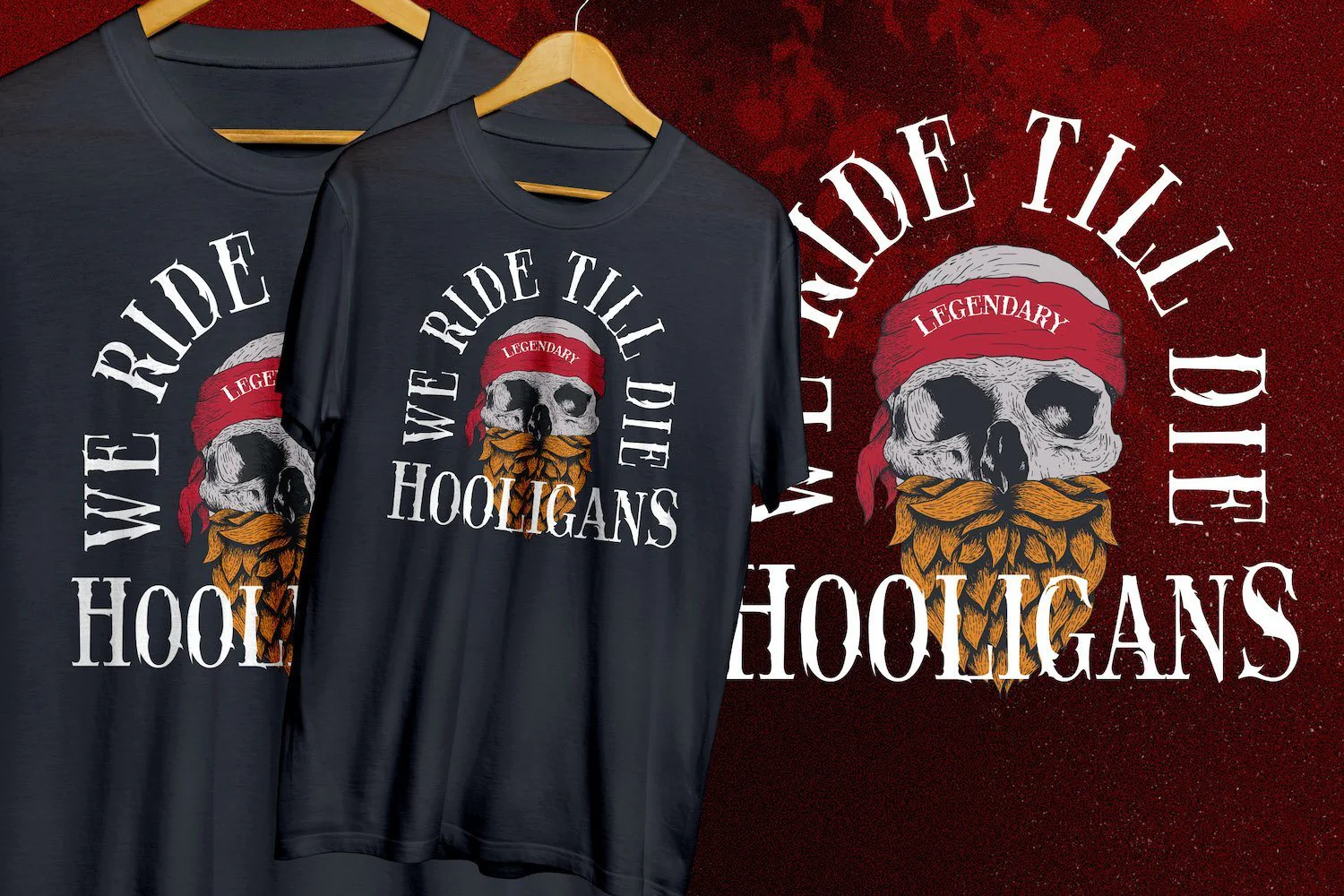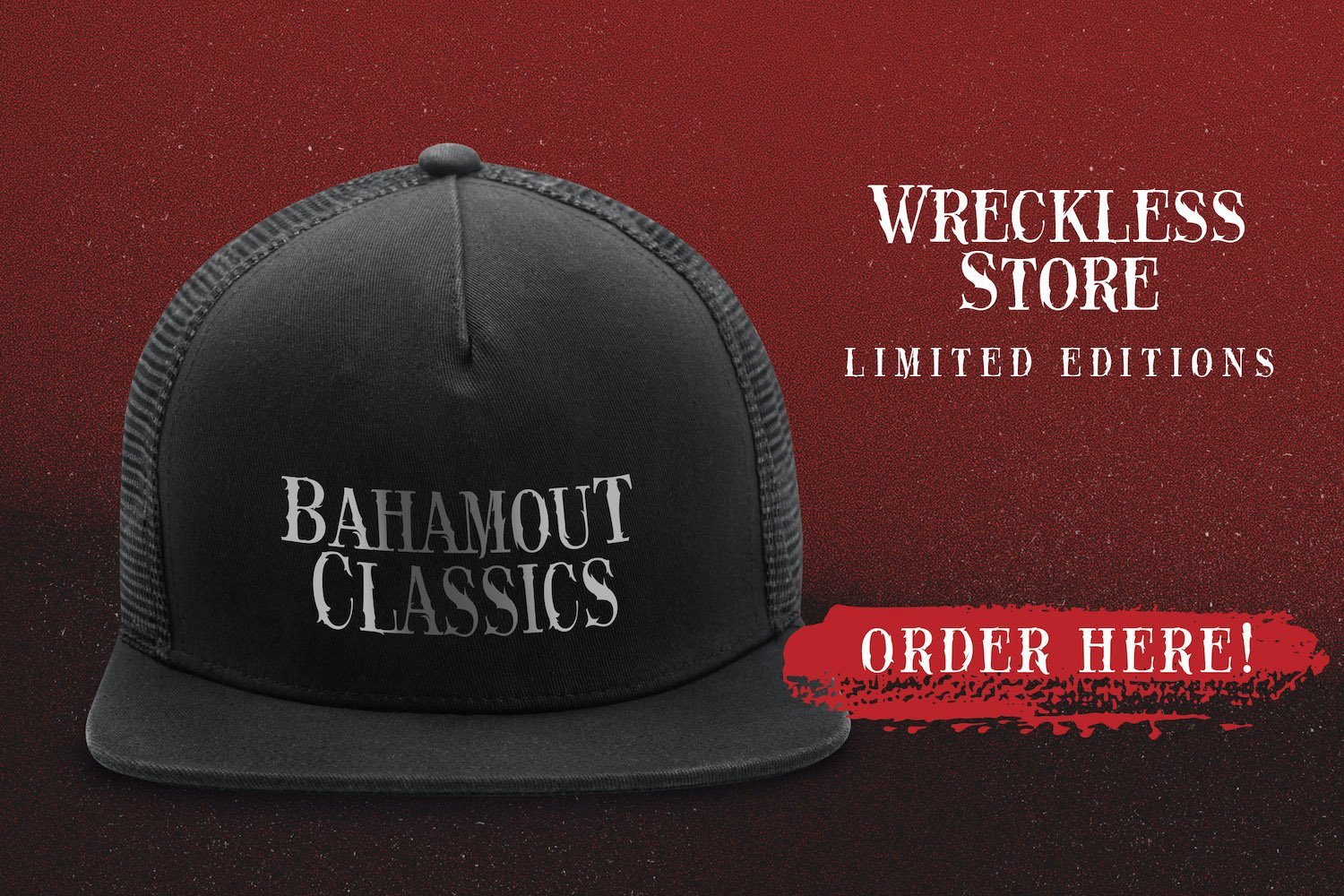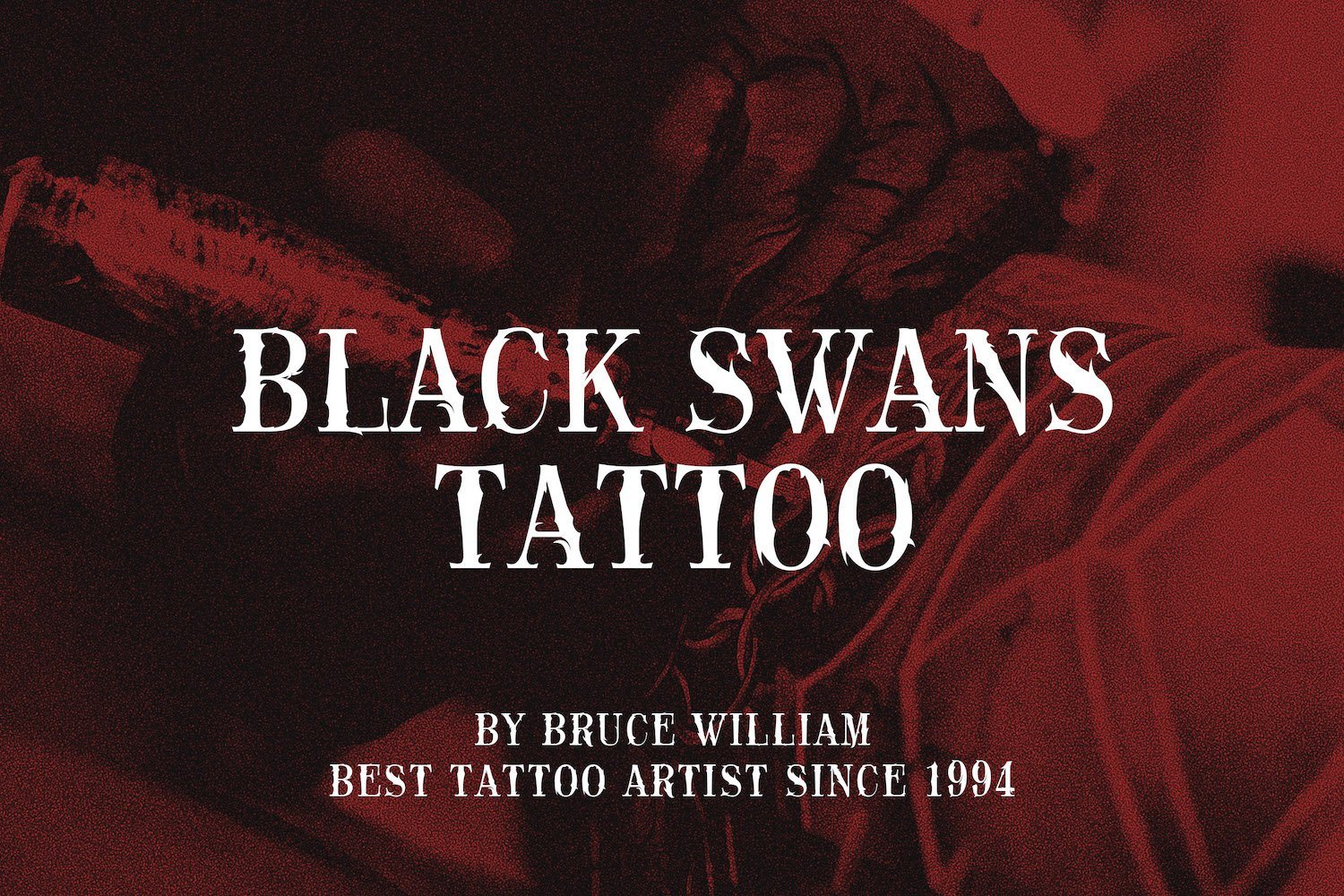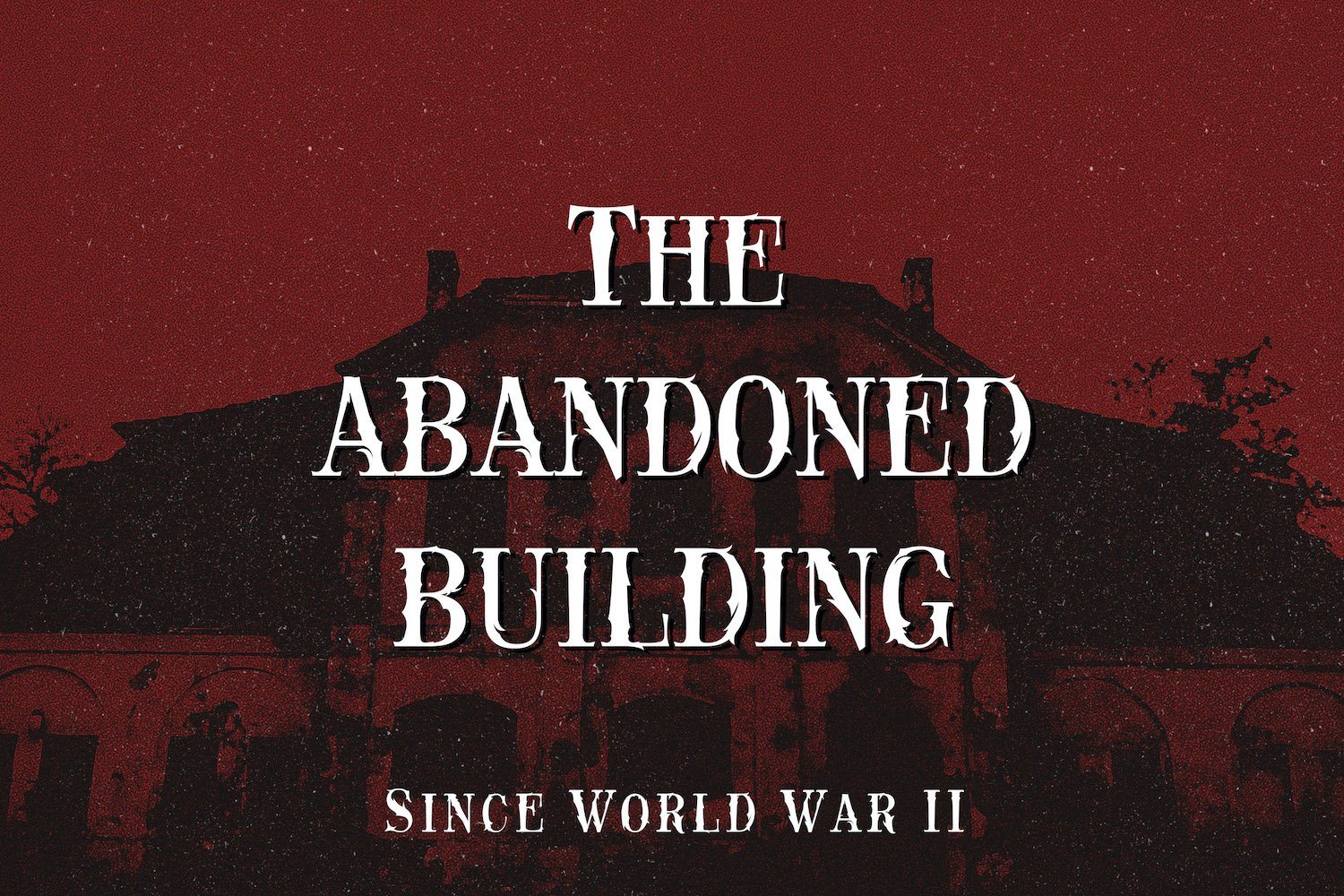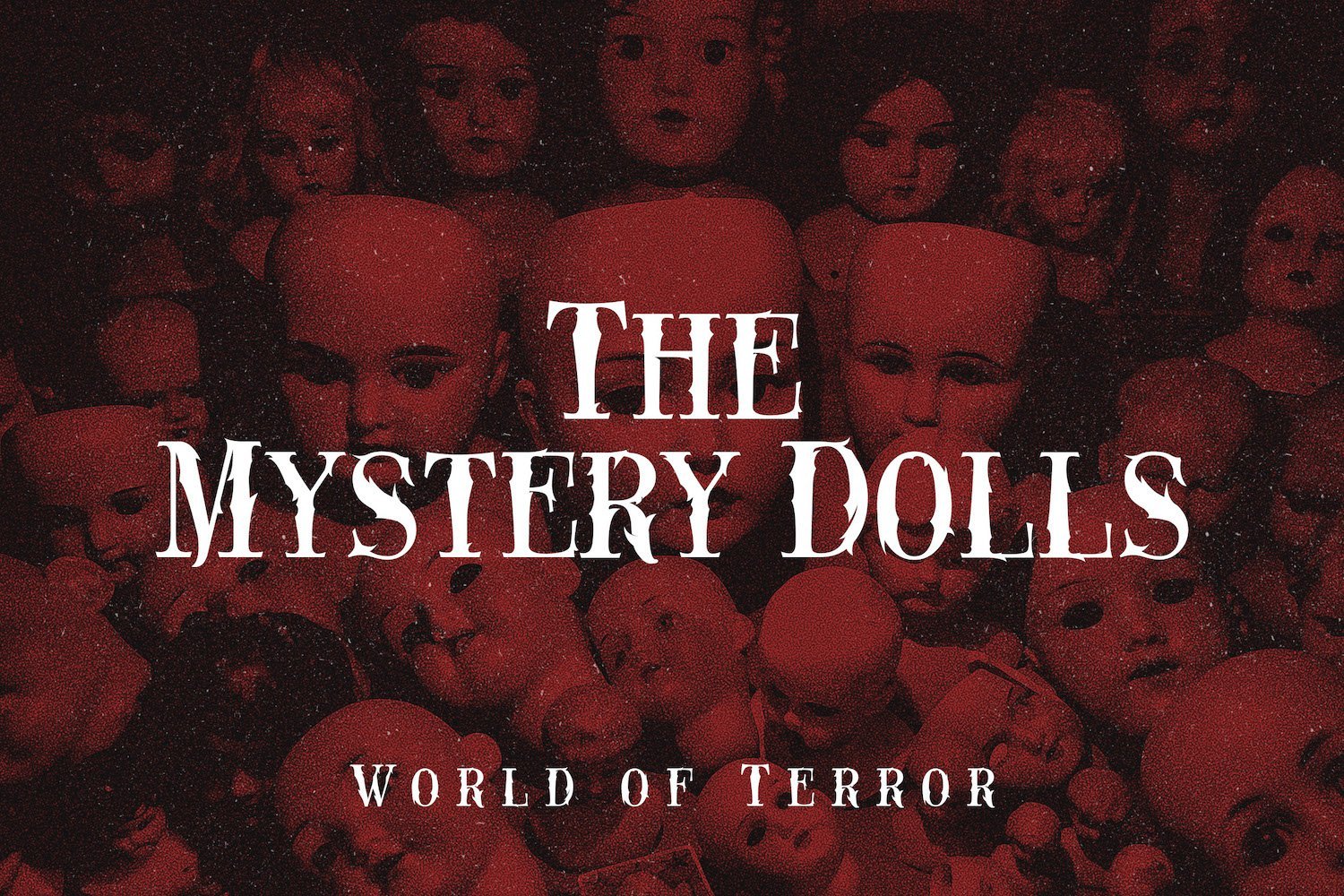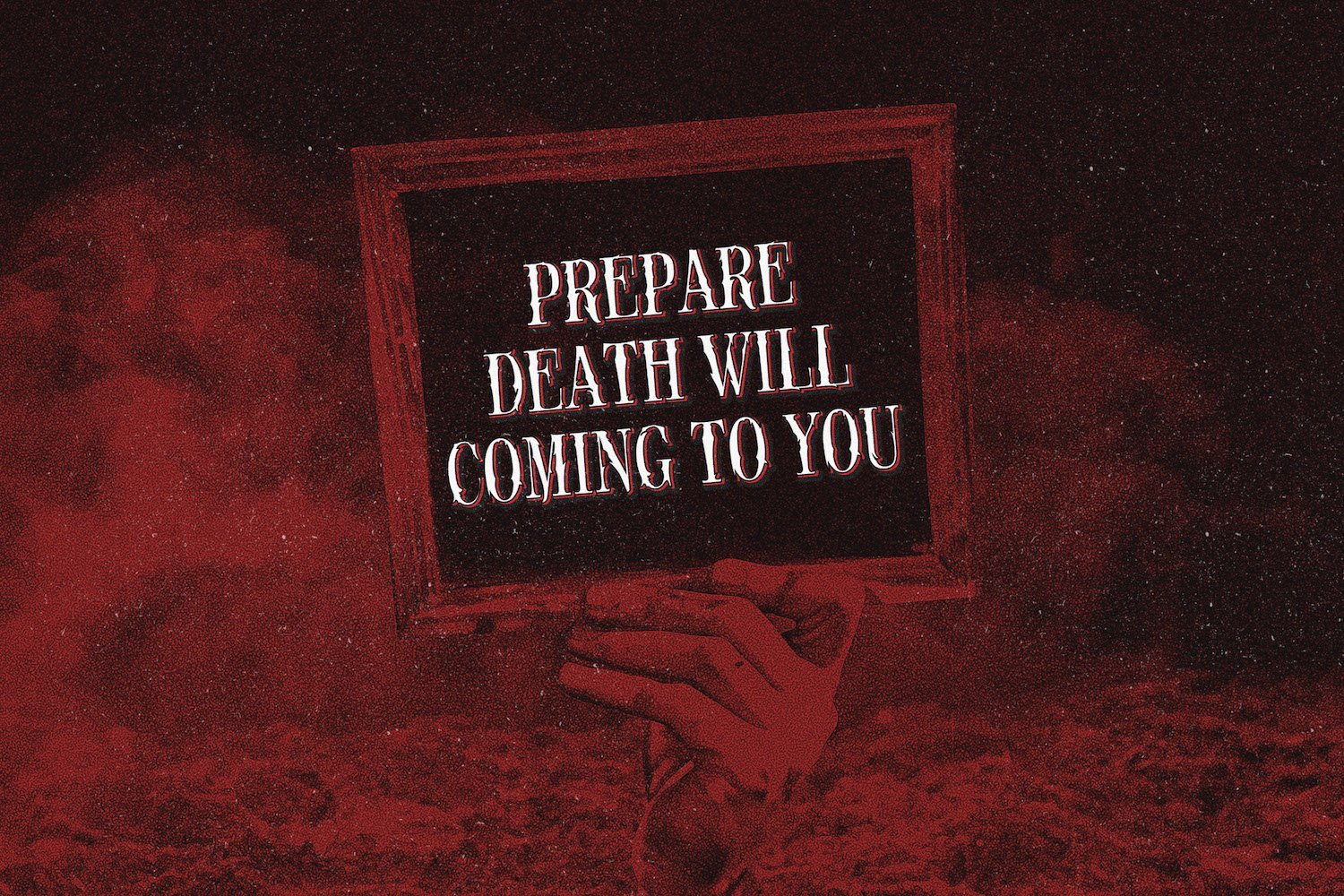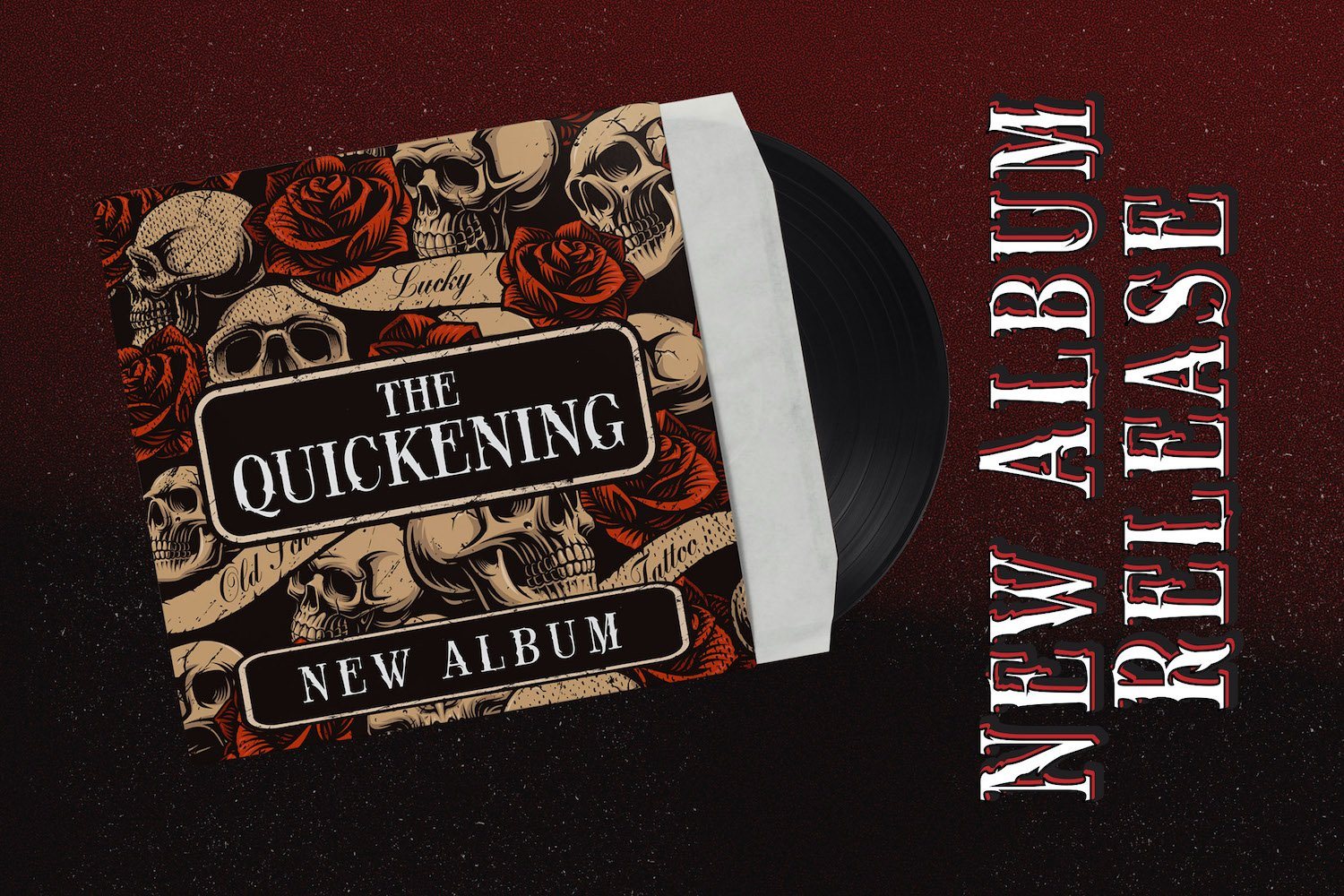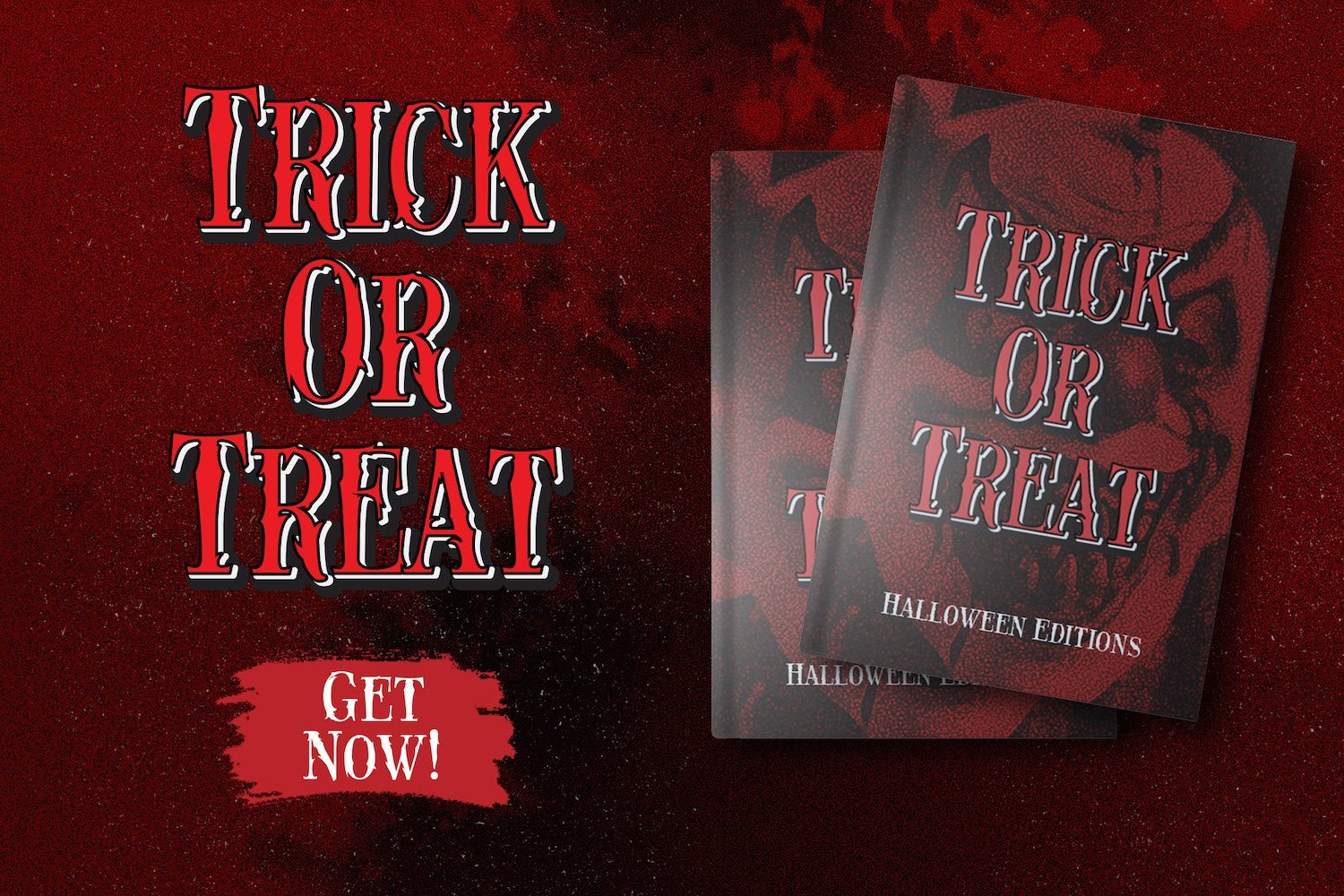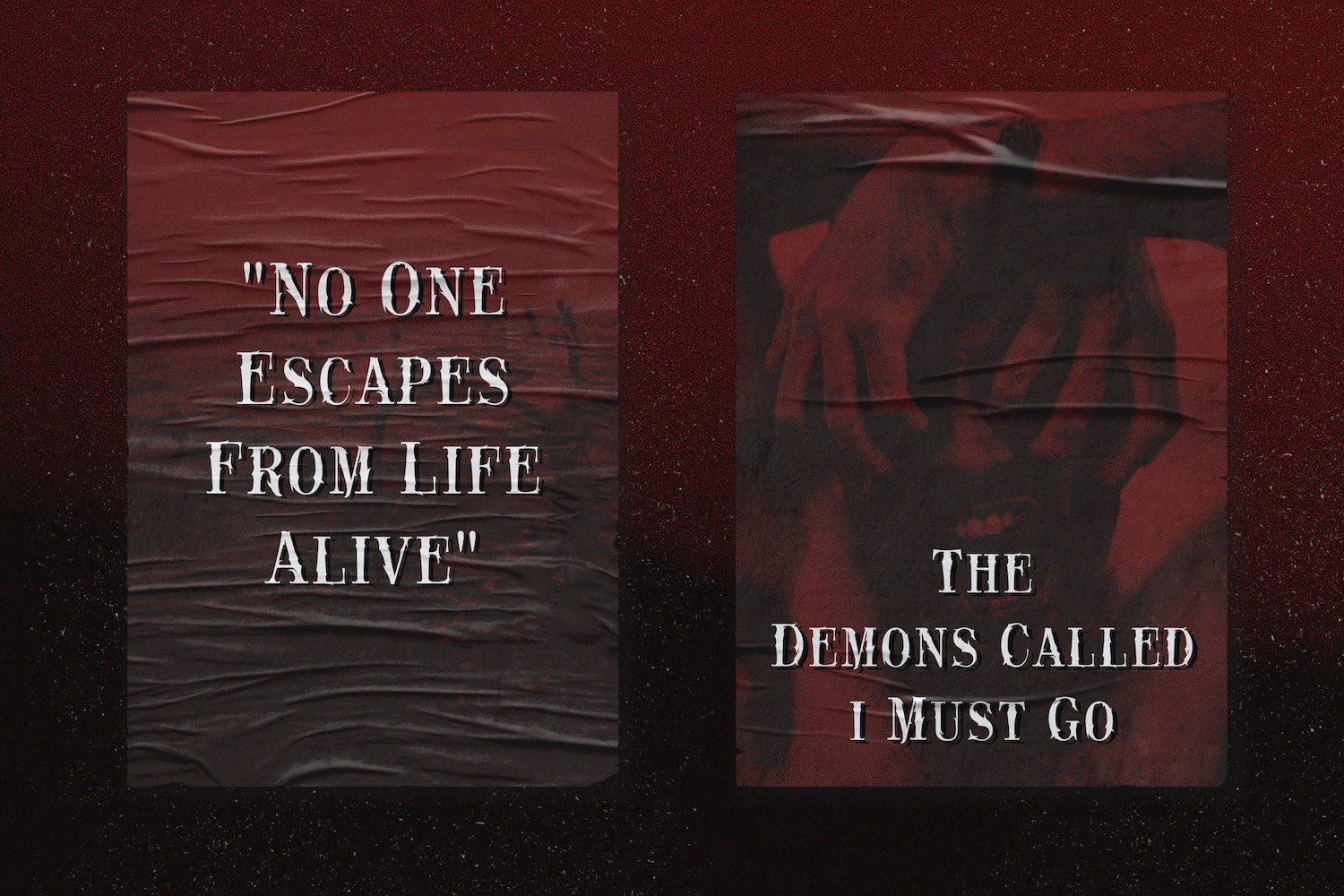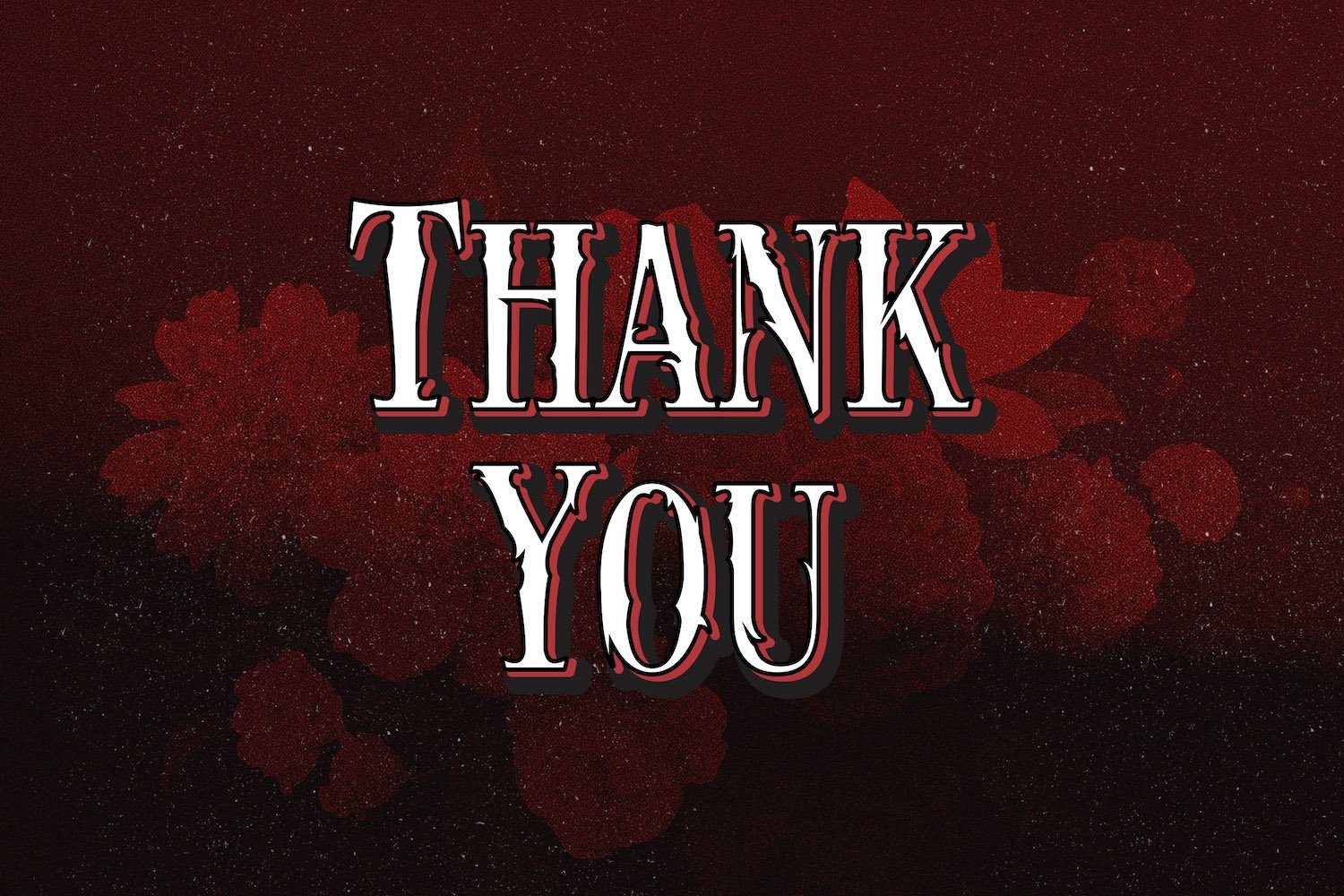
Black Rose - Haunted Display Font
Introducing Black Rose - Haunted Display Font
Black Rose is a unique display font. It features a spooky feel that makes it perfect for any project that requires a horror-theme. Use it for movies, flyers, posters, Halloween crafting and much more!
Introducing Black Rose - Haunted Display Font
Black Rose is a unique display font. It features a spooky feel that makes it perfect for any project that requires a horror-theme. Use it for movies, flyers, posters, Halloween crafting and much more!